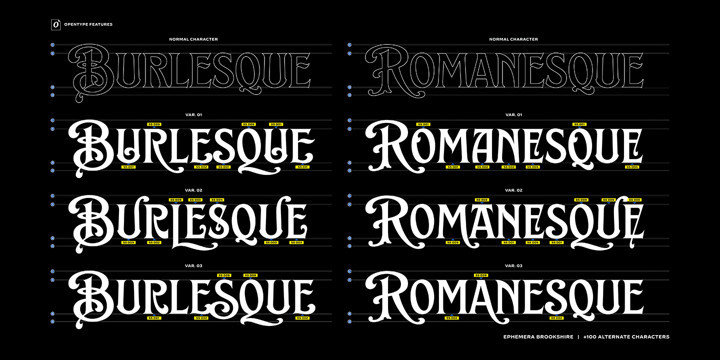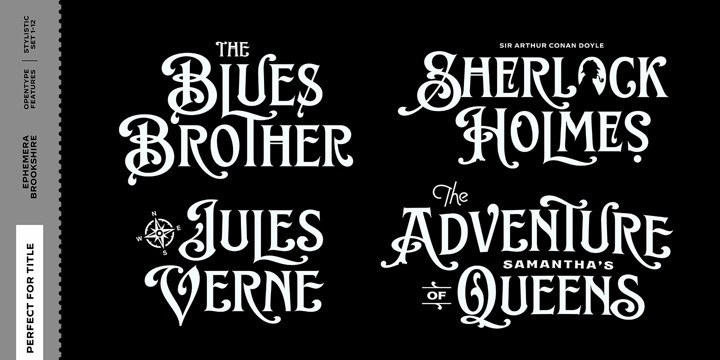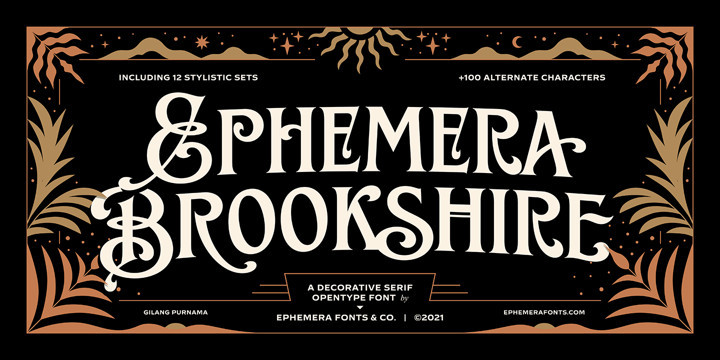
EFCO Brookshire Font
EFCO Brookshire FontBrookshire was inspired by the lettering seen on the Almanac ephemera paper when I visited the flea market in France. The result is a lovely piece of neo-Victorian fun that brings back the joy of 19th-century shop signs and flamboyant design ethos.
Brookshire is ideal for poster work and signage, or anywhere that you want to bring back the joy of high Victorian design ethos.